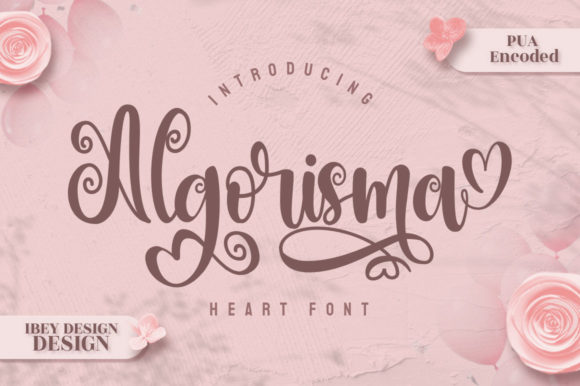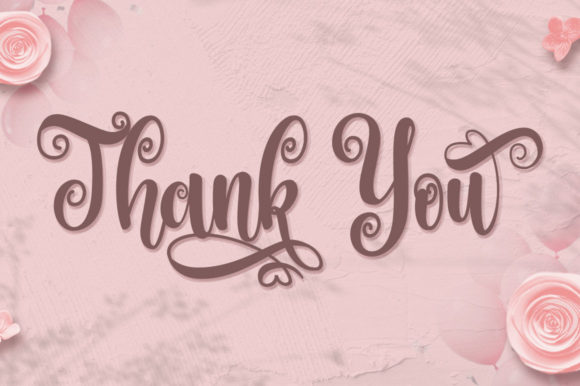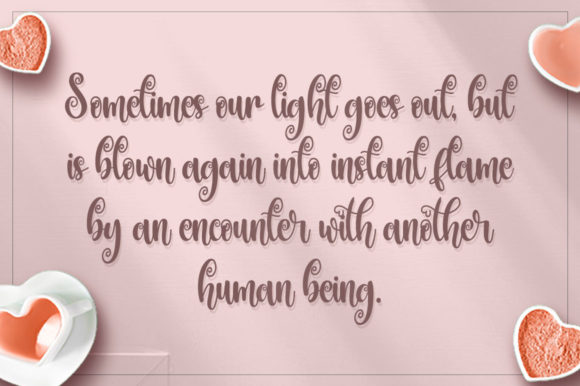
About Algorisma Font
Algorisma is a lovely and delicate script font that exudes elegance and class. This font was particularly crafted for those who need a beautiful and refreshing look to their designs.
Algorisma is PUA encoded which means you can access all glyphs and swashes with ease!